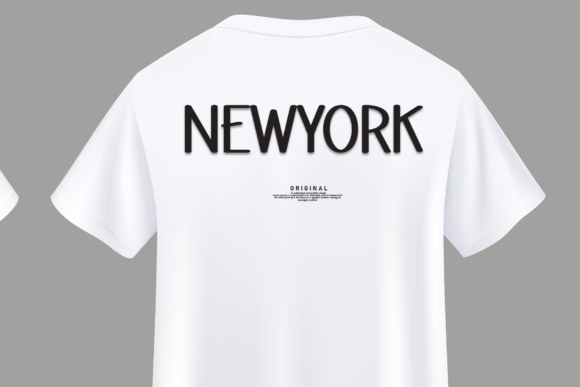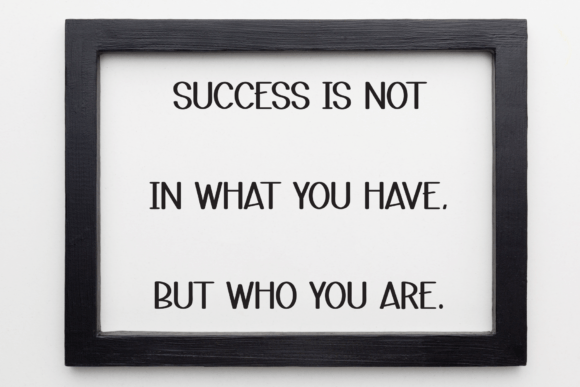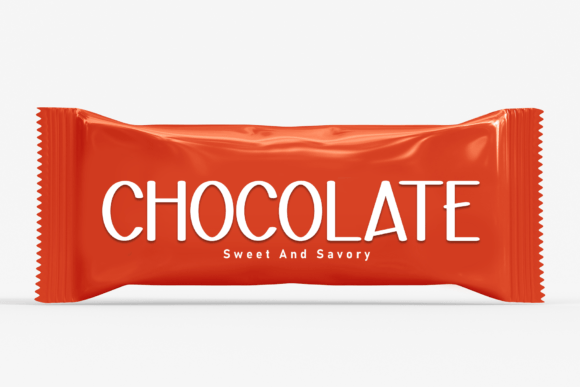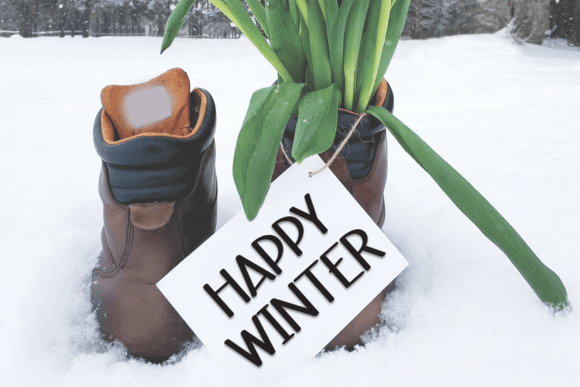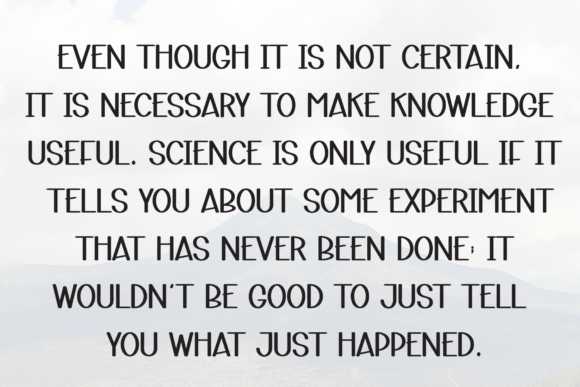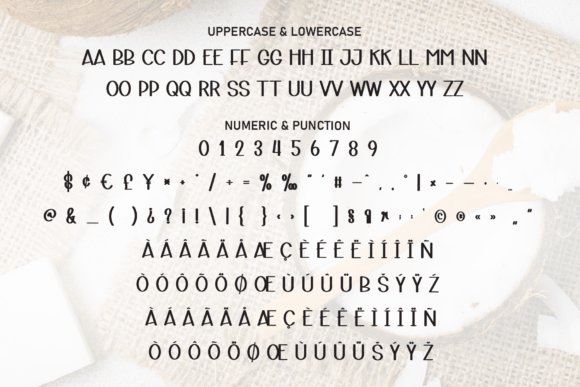
Adding a Touch of Whimsy to Your Designs
Have you ever found yourself staring at a blank canvas, struggling to find the perfect font to bring your creative vision to life? You know, that moment when everything else feels just right, but the typography is missing that special something?
Meet the Coconut Delight Font, a charming handwritten display font designed to infuse your designs with a playful and adorable vibe. Whether you’re crafting wedding invitations, endearing cards, or any other project that needs a touch of whimsy, this font is sure to delight. As a designer, you understand the importance of choosing the right font to convey your message and evoke the desired emotions in your audience. The Coconut Delight Font is a valuable addition to your design toolkit, offering a unique and captivating visual language that’s sure to leave a lasting impression.
Coconut Delight Font Key Features
- Font Family: Coconut Delight Font
- Unique Characteristics: Whimsical, playful, and elegant design with intricate details, perfect for food, travel, and tropical-themed branding
Coconut Delight Font Review
Overall, I think Coconut Delight Font is a unique and playful addition to any design project. The font’s ✨ whimsical feel and exotic vibe make it perfect for branding and packaging design.
- ✨ Unique and eye-catching design that stands out in a crowd
- Perfect for projects that need a tropical or exotic feel
- Works well in bold and bright color schemes
- Highly legible, making it suitable for body text
- ⚠️ May not be suitable for formal or professional projects
- ⚠️ Limited character set, which may cause issues with language support
- ⚠️ Some letters may not be compatible with certain operating systems or devices
In conclusion, Coconut Delight Font is a great choice for designers looking for a fun and unique font. While it may have some limitations, its playful design and versatility make it a valuable addition to any design library.
Getting the Most Out of Coconut Delight Font
To get the most out of the Coconut Delight Font, use it in combination with bright and pastel colors to create a playful and tropical atmosphere.
Experiment with different font sizes and styles to add visual interest to your designs.
The Coconut Delight Font is perfect for:
- Summer-themed designs and marketing materials.
- Tropical wedding invitations and decor.
- Food and beverage branding, especially for coconut-based products.
Alternatives to Coconut Delight Font
Cream Sans
Cream Sans is a clean and elegant sans-serif font, perfect for designs that require a touch of sophistication. It is ideal for use in magazines, newspapers, and other publications where a classic and timeless look is desired.
Compared to Coconut Delight Font, Cream Sans is more straightforward and lacks the tropical flair. However, its versatility and readability make it a suitable choice for various design projects.
Lato is a modern sans-serif font that is highly legible and suitable for a wide range of applications, from corporate branding to digital interfaces. Its clean and minimalist design makes it perfect for use in modern and tech-savvy designs.
Lato is more modern and sleek compared to Coconut Delight Font, which gives it a more contemporary feel. However, Lato lacks the warmth and playfulness of Coconut Delight Font, making it less suitable for designs that require a fun and lively tone.
Playfair Display is a luxurious and elegant serif font, perfect for use in high-end designs such as luxury branding, advertising, and editorial projects. Its sophisticated and refined look makes it ideal for creating a sense of luxury and sophistication.
Compared to Coconut Delight Font, Playfair Display is more formal and sophisticated, lacking the casual and tropical feel. However, its refined and elegant design makes it a suitable choice for designs that require a touch of luxury and sophistication.